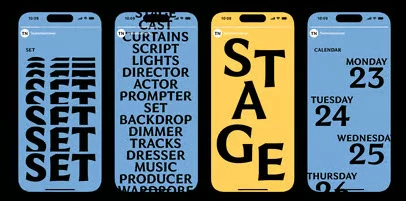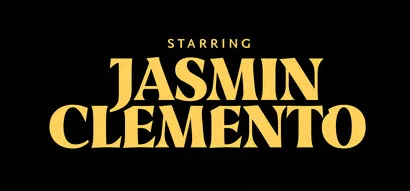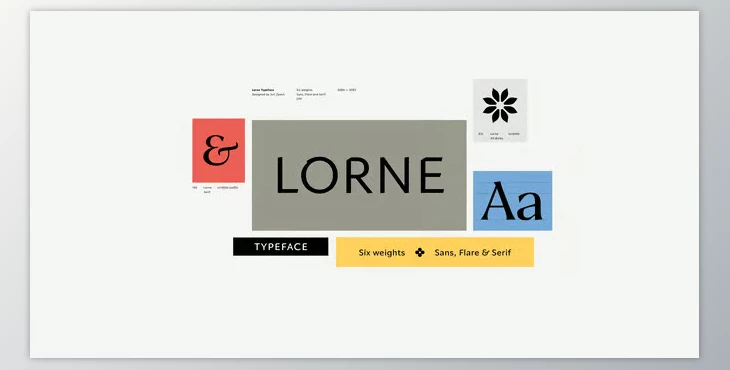
MyFonts - Lorne Font Family:
Calligraphic and incised letters come together in the versatile type family Lorne, which invokes a feeling that is both modern and classic. It is comprised of three styles—Sans, Flare, and Serif—and six weights from Light to Black.
Lorne is ideal for creating strong brand identities, editorial pieces, or visually striking designs such as book covers or album art due to the flared serifs or slanted terminals. In addition, Lorne offers a variety of OpenType options, including alternate ampersands, Celtic caps, and a double-storey ‘g’. Due to the extensive character set and balance in the kerning between letters, Lorne works well creatively across different projects.